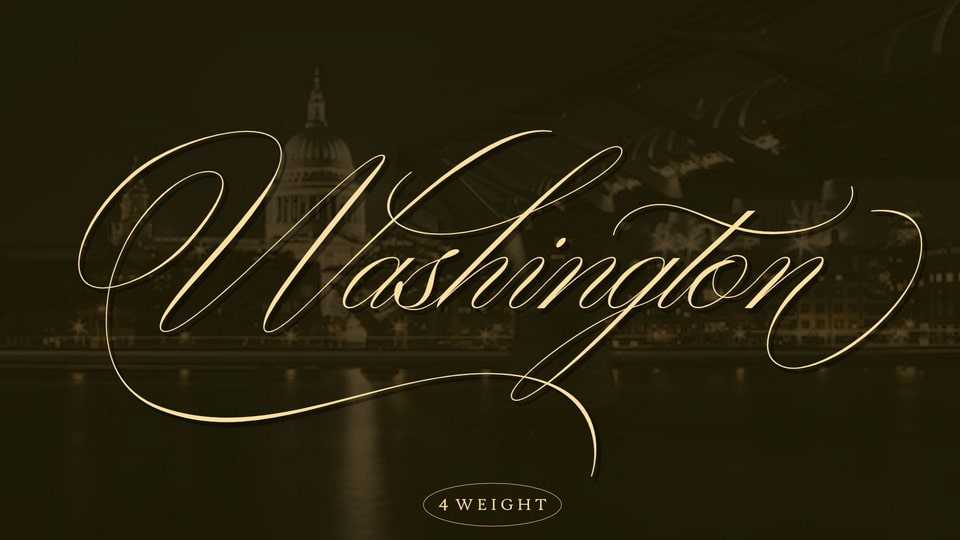
Download Washington font, a beautiful calligraphy typeface with a classic style and a touch of elegance, inspired by the handwriting of Italian women and ancient manuscripts. Carefully designed to work in harmony, v font is very suitable for any design project that requires a classic, formal or luxurious style.
Designer: Sealoung